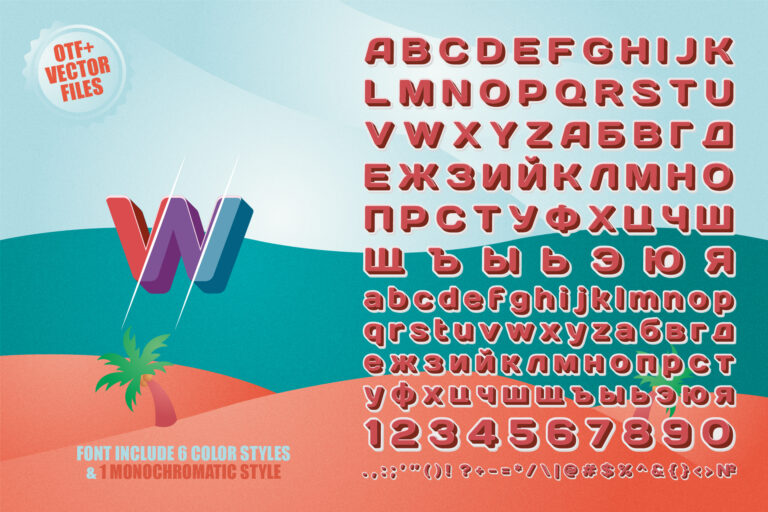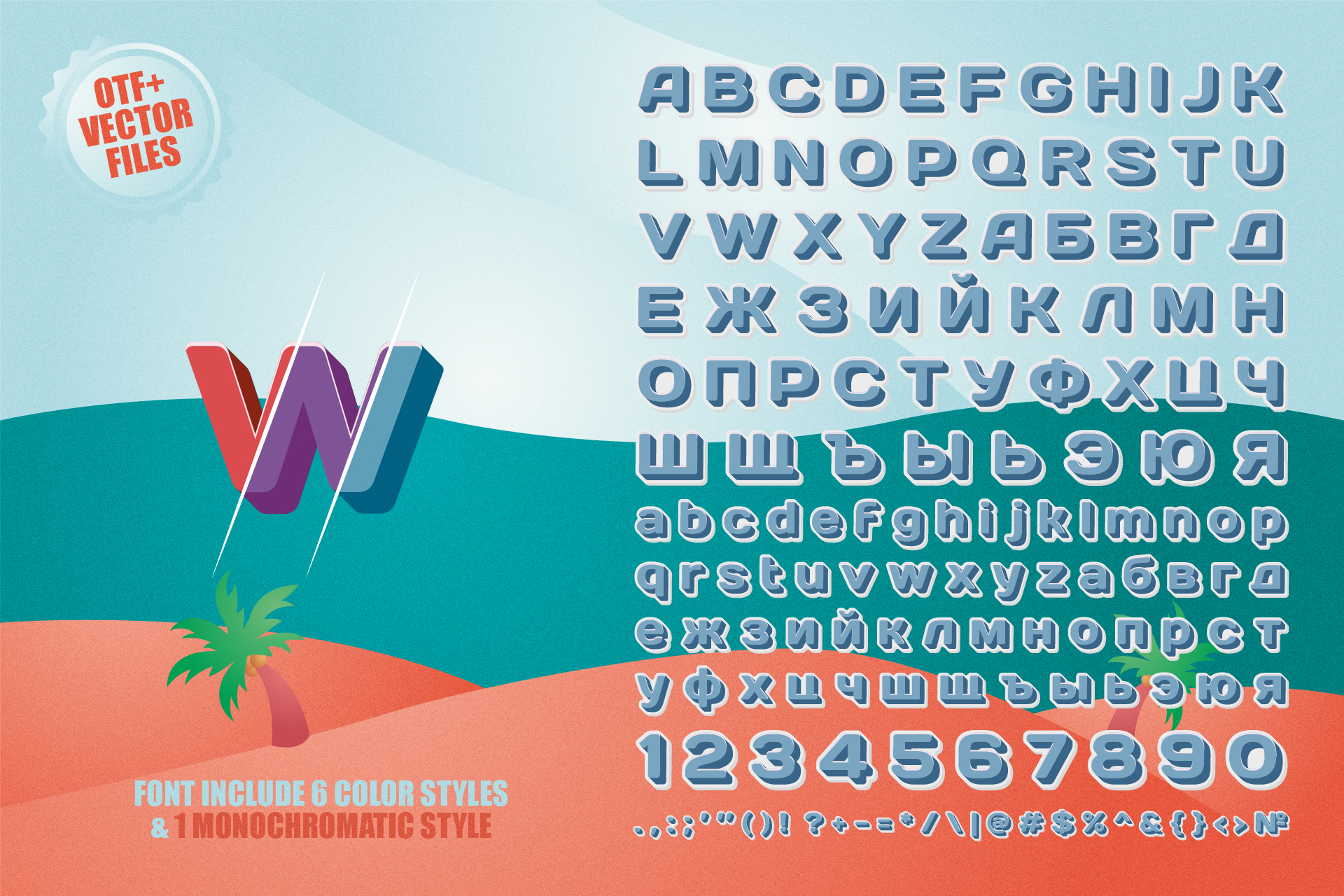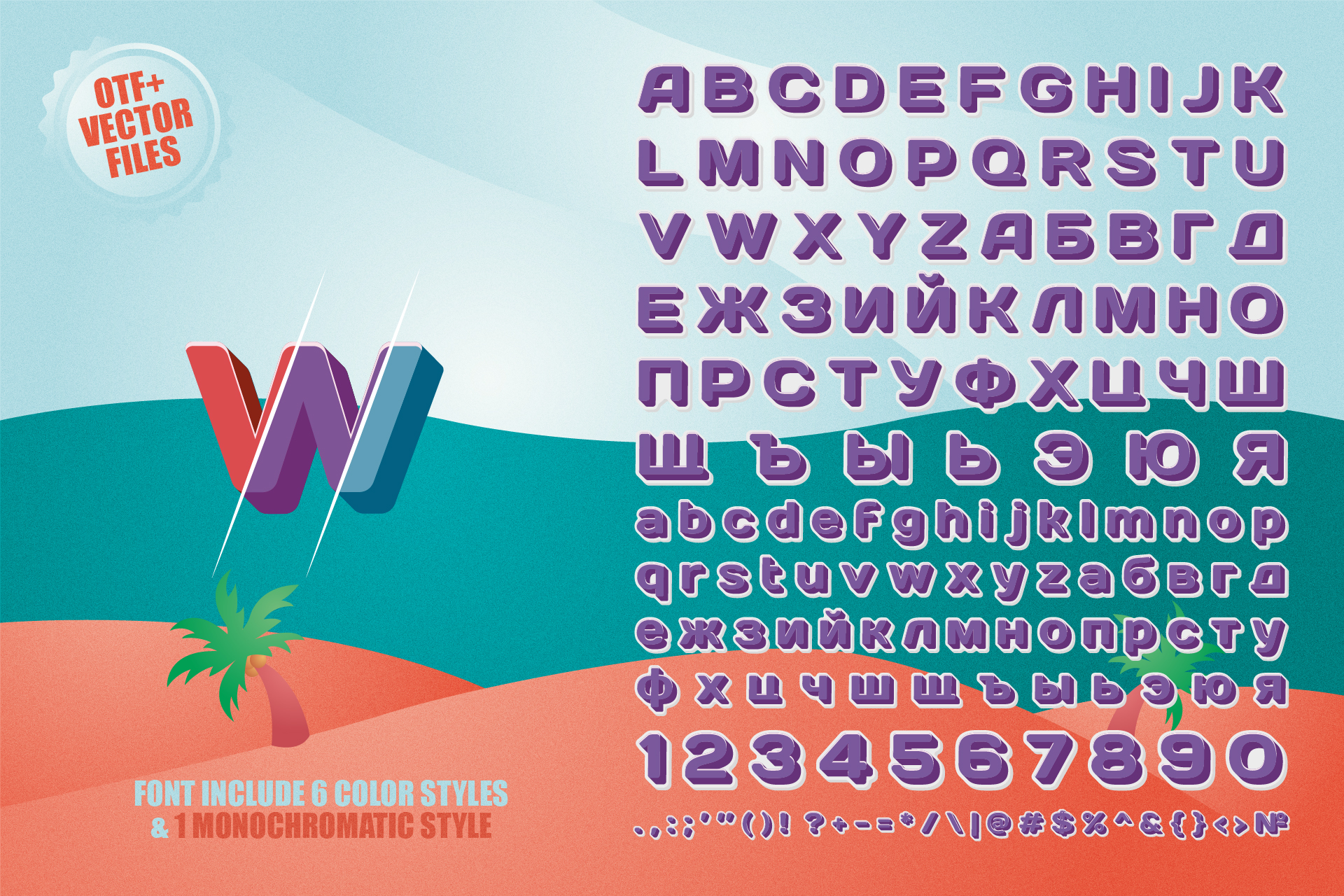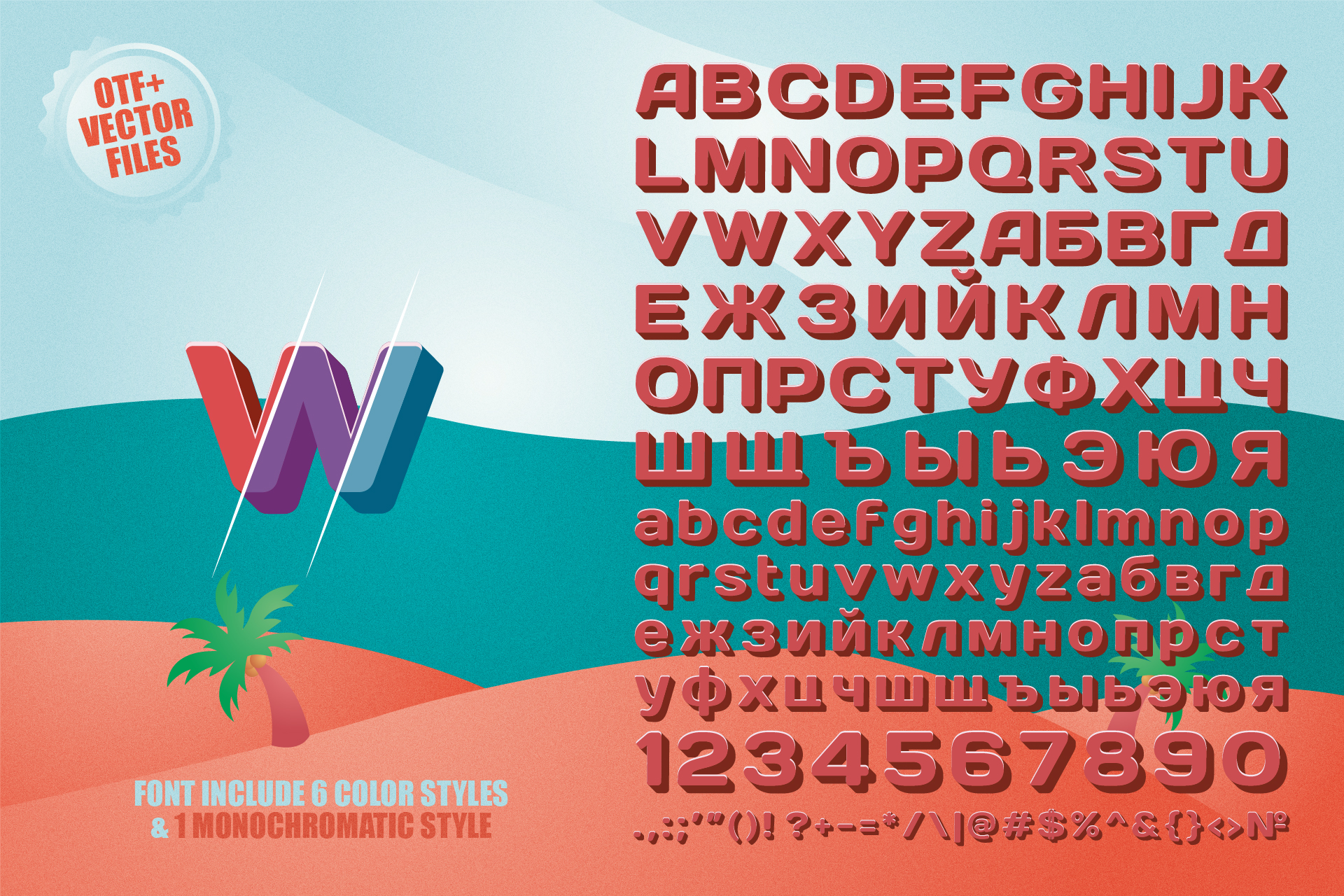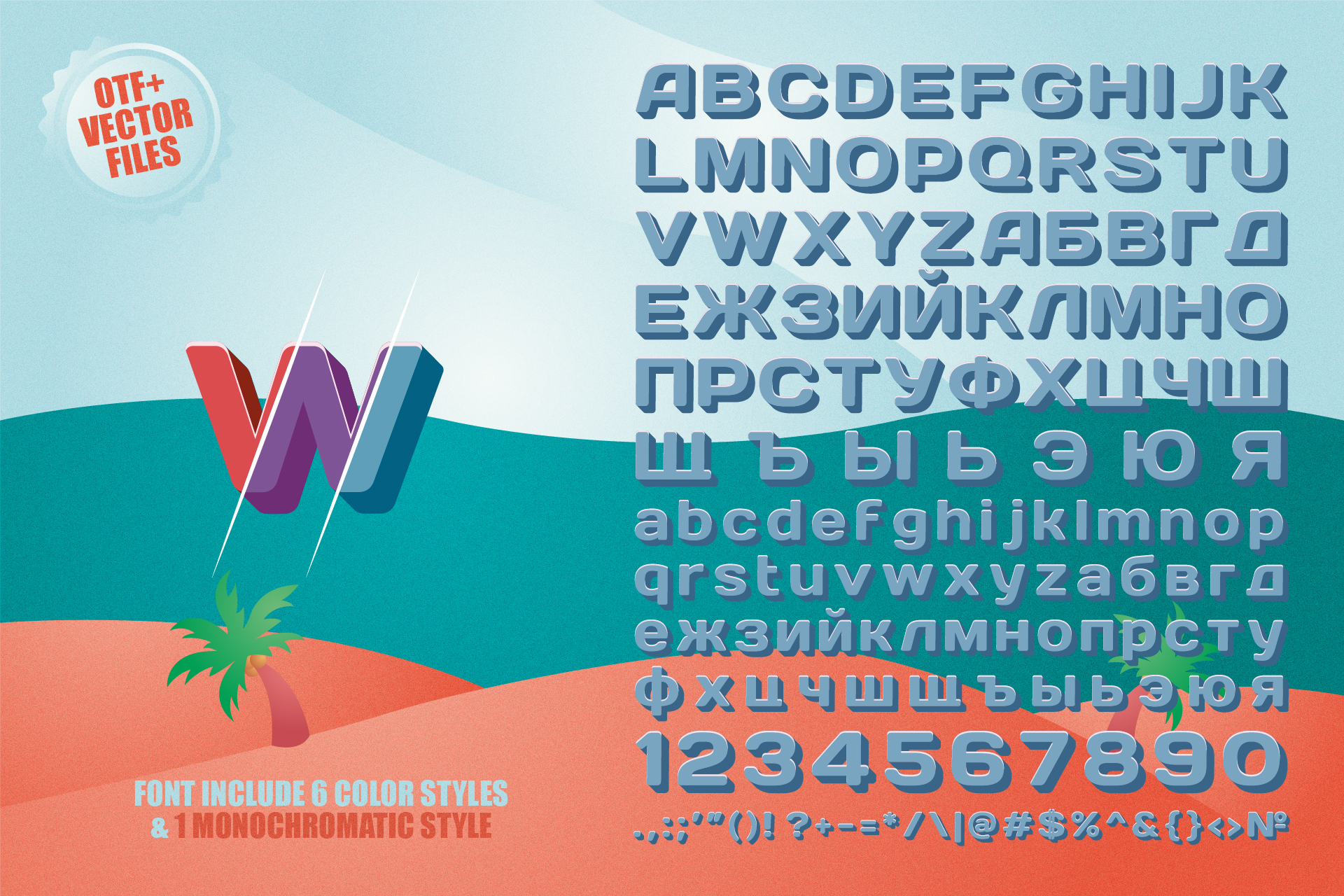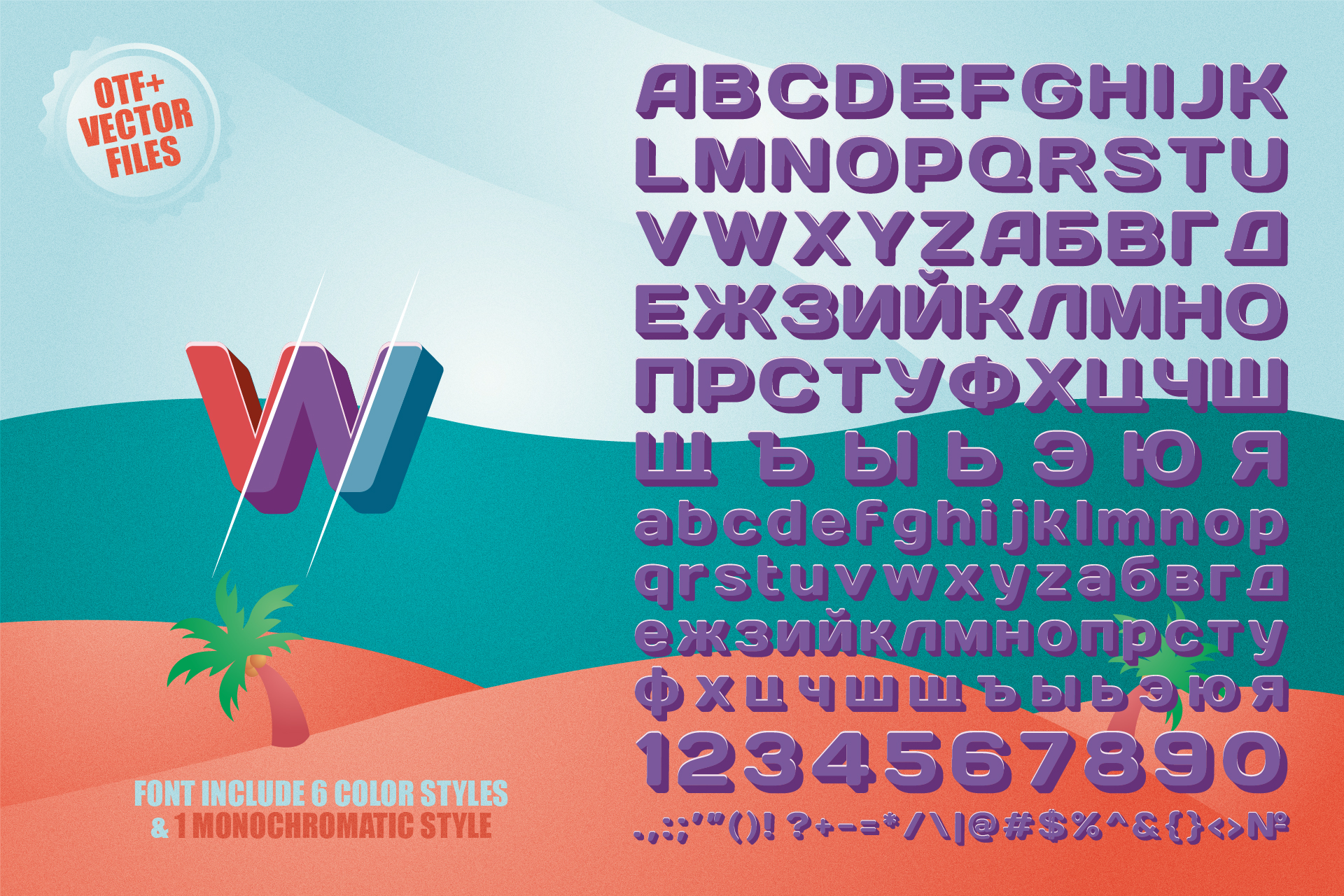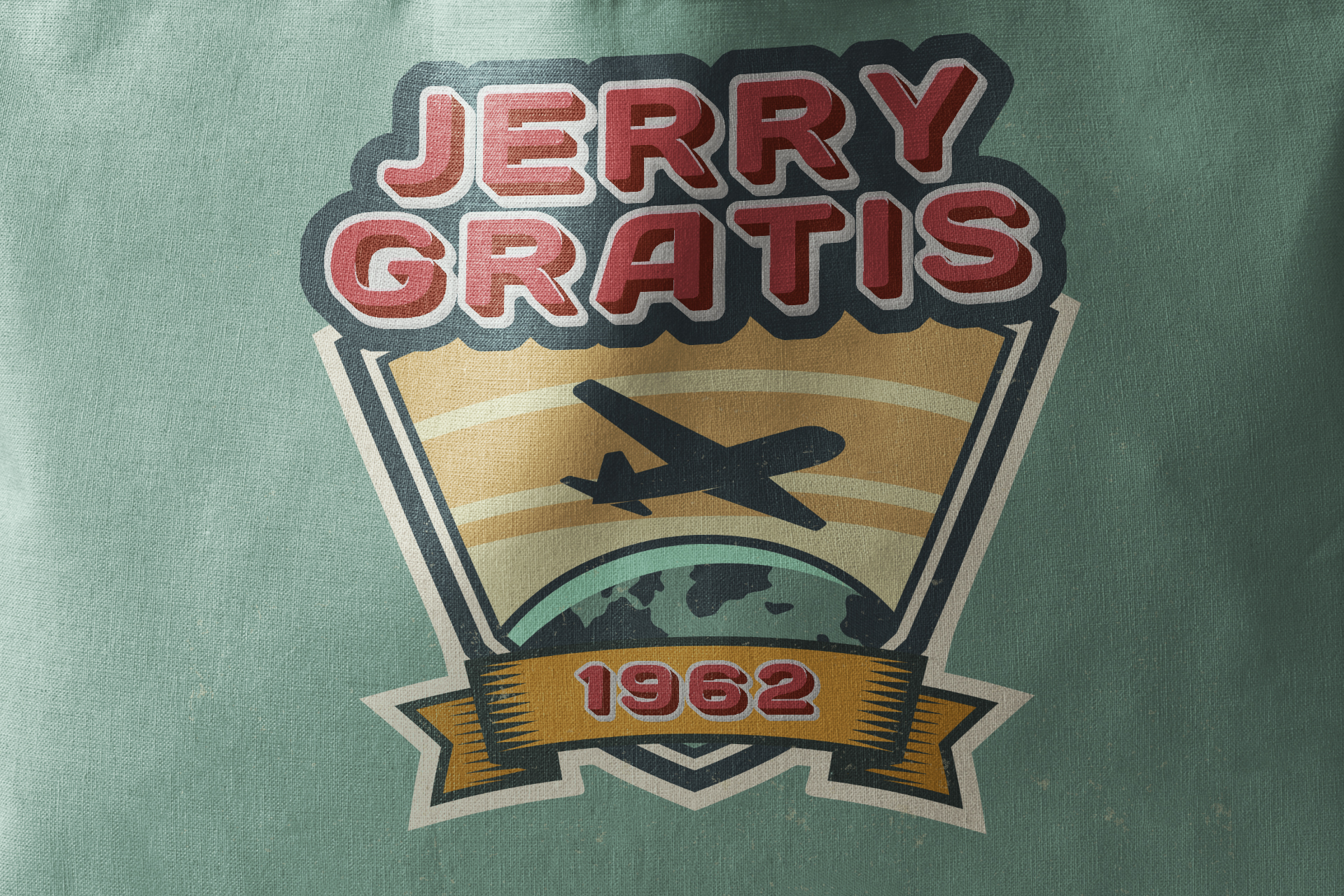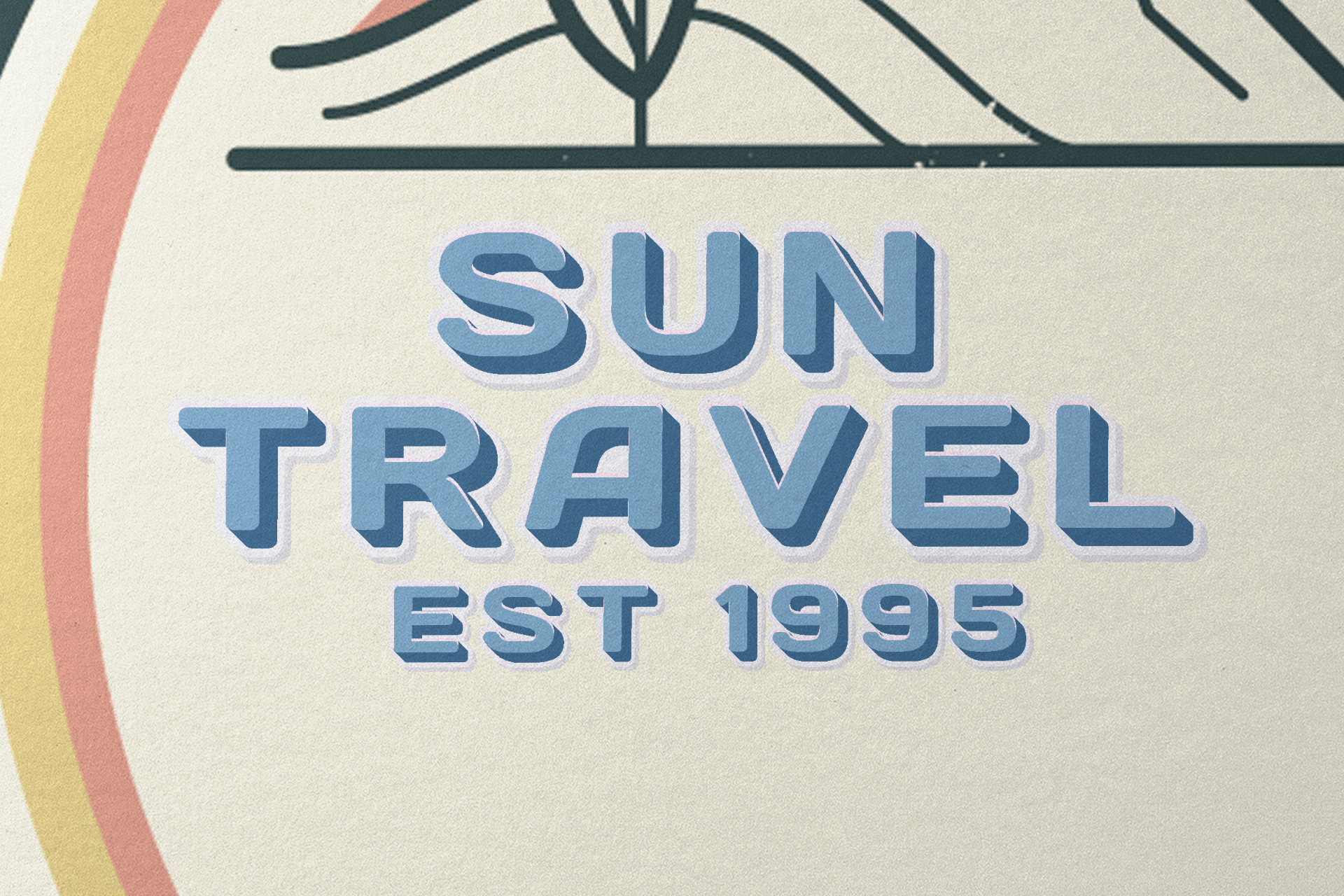
Arco — OTF Color Font | Playful & Modern Multicolor Typeface
Arco is a playful and modern OTF color font designed to add vibrant personality and creativity to your projects. With bold multicolor letterforms and a clean, rounded style, Arco is perfect for designs that need to be both eye-catching and approachable. Whether you're working on social media graphics, packaging, posters, branding, or creative headlines, Arco delivers a fresh and dynamic look. Compatible with OpenType-SVG font-supporting design software, including Adobe Photoshop, Illustrator, and InDesign.
✦ Multicolor design